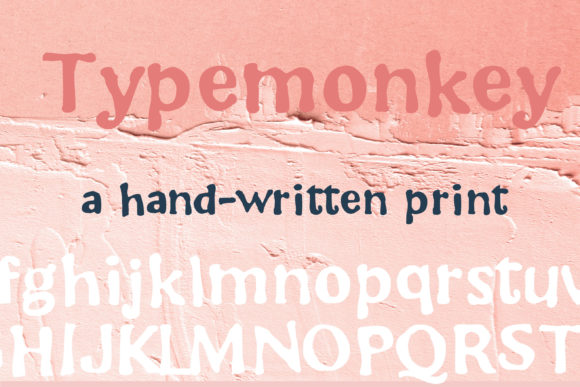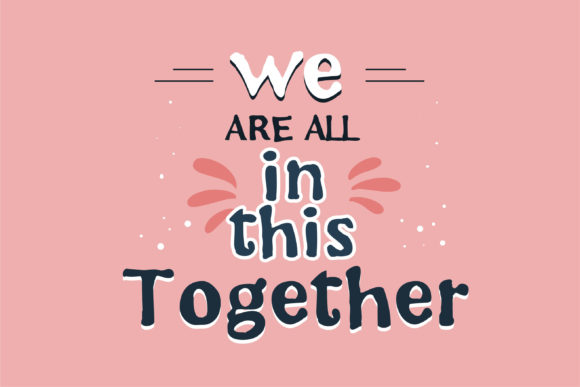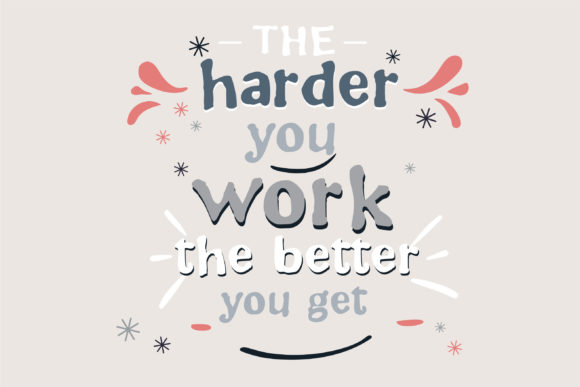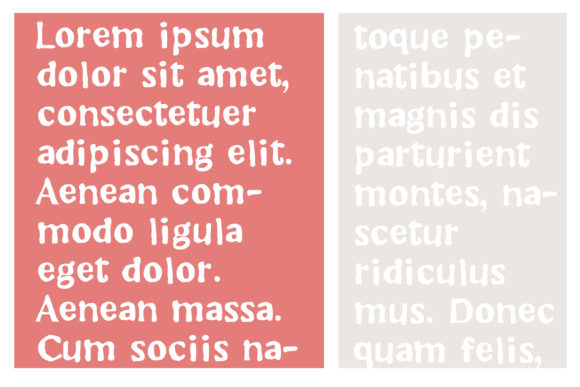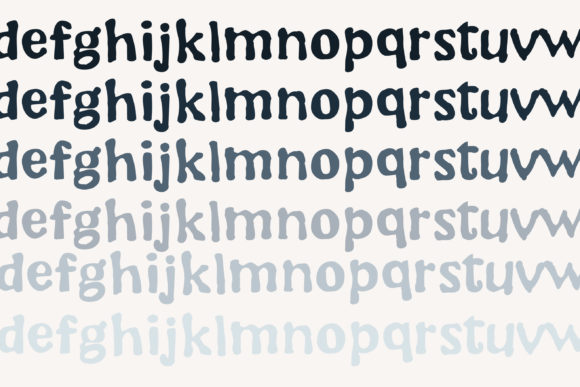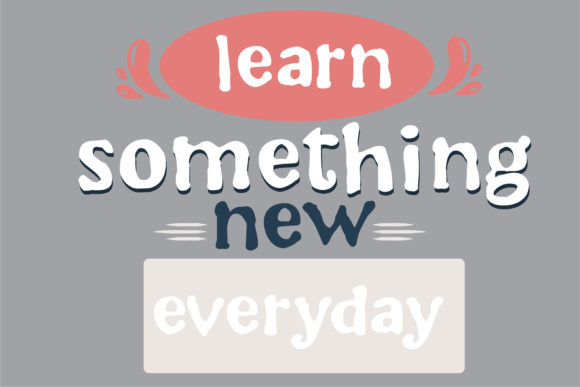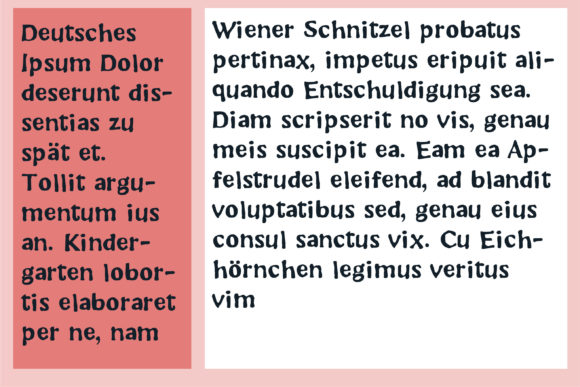
Typemonkey Font
About Typemonkey Font
“Typemonkey” is a font that seamlessly blends modernity with a touch of whimsy. With its unique character, this font has the innate ability to elevate your creative concepts to new heights.
The modern yet whimsical style of “Typemonkey” sets it apart from conventional fonts. Its clean and contemporary design is infused with a playful element that adds a sense of lightheartedness to your projects. This font is not only a means of communication but also a creative tool that enhances the visual impact of your ideas.
Each letter of “Typemonkey” exudes a distinct personality, contributing to a diverse and captivating visual experience. Its versatility allows it to adapt to various design contexts, making it suitable for everything from branding and logos to marketing materials and beyond.
Whether you’re crafting a professional presentation or a creative advertisement, “Typemonkey” brings a fresh and captivating aesthetic that captures attention. Its whimsical undertones inject a sense of fun into your work, making it stand out in a sea of more conventional designs.
Incorporating “Typemonkey” into your projects provides an opportunity to infuse a touch of creativity and innovation. Its unique fusion of modern and whimsical elements makes it a versatile asset that can complement a wide range of creative endeavors. This font transforms ordinary ideas into something extraordinary, making it a valuable tool for expressing your creativity in new and exciting ways.